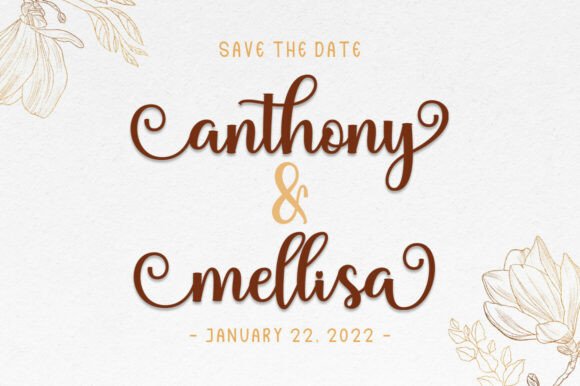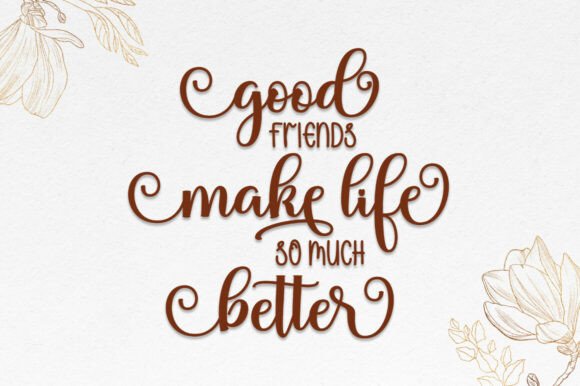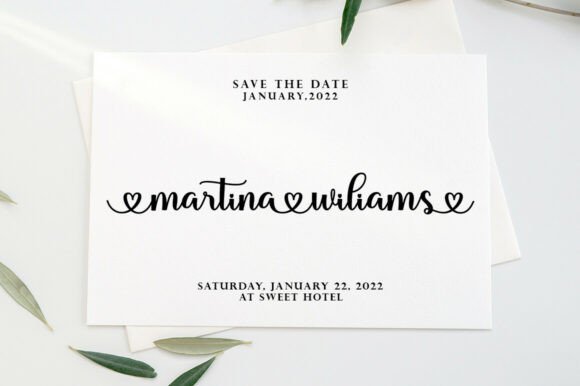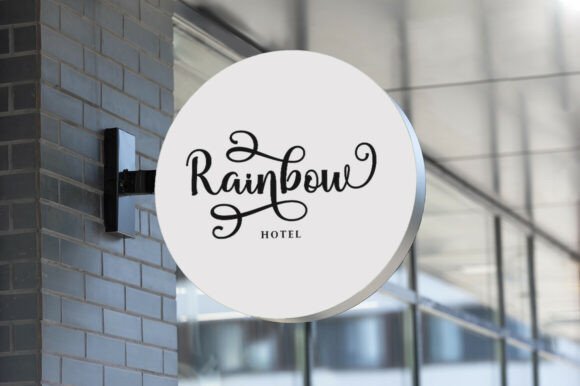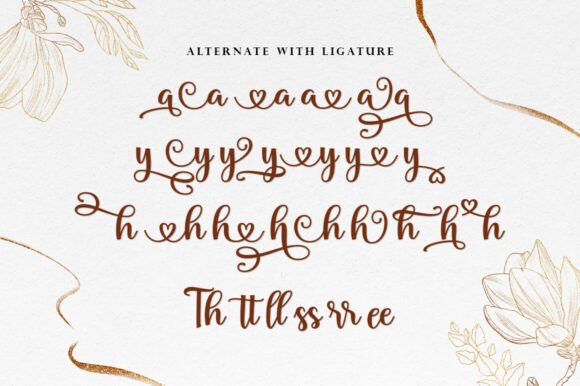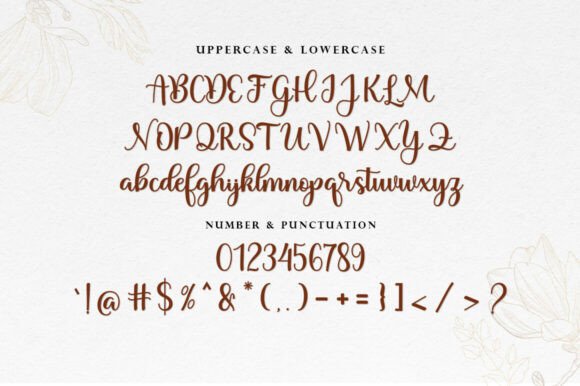
Discover the Charm of Blantone Font: A Soft and Sweet Calligraphic Typeface
Are you a designer or crafter looking for a unique and elegant font to elevate your creative projects? Look no further than Blantone Font, a soft and sweet calligraphic typeface that is sure to capture your heart. With its casual and elegant touch, Blantone Font is perfect for a wide range of applications, from logos and wedding invitations to headings, t-shirts, and more.
The Characteristics of Blantone Font
Blantone Font is a beautifully crafted calligraphic typeface that boasts a range of distinctive characteristics. The characters in Blantone Font dance along the baseline, creating a sense of movement and fluidity that is both visually appealing and engaging. The font’s soft and sweet appearance makes it perfect for designs that require a touch of elegance and sophistication.
What Makes Blantone Font So Versatile?
One of the things that sets Blantone Font apart from other typefaces is its incredible versatility. This font can be used for a wide range of purposes, including:
- Logos: Create a unique and memorable logo for your business or brand with Blantone Font.
- Wedding Invitations: Add a touch of elegance and romance to your wedding invitations with Blantone Font.
- Headings: Use Blantone Font to create eye-catching headings for your website, blog, or marketing materials.
- T-Shirts: Design custom t-shirts with Blantone Font for a unique and stylish look.
- Letterheads: Elevate your business correspondence with Blantone Font on your letterheads.
- Signage: Create eye-catching signs with Blantone Font for your business or event.
- Labels: Use Blantone Font to create custom labels for your products or packaging.
- News: Add a touch of elegance to your news articles or blog posts with Blantone Font.
- Posters: Create stunning posters with Blantone Font for your business or event.
- Badges: Design custom badges with Blantone Font for your business or organization.
Why Designers and Crafters Love Blantone Font
Blantone Font has quickly become a favorite among designers and crafters, and for good reason. This font offers a unique combination of elegance, sophistication, and playfulness that makes it perfect for a wide range of creative projects. Here are just a few reasons why designers and crafters love Blantone Font:
- Elegant and Sophisticated: Blantone Font adds a touch of elegance and sophistication to any design.
- Unique and Creative: Blantone Font is a one-of-a-kind typeface that will help your designs stand out from the crowd.
- Easy to Read: Despite its elegant appearance, Blantone Font is easy to read and understand.
- Highly Versatile: Blantone Font can be used for a wide range of purposes, from logos and headings to t-shirts and signage.
Tips for Using Blantone Font
To get the most out of Blantone Font, here are a few tips to keep in mind:
- Use it sparingly: Blantone Font is a statement font, so use it sparingly to add emphasis and elegance to your designs.
- Experiment with colors: Blantone Font looks great in a range of colors, so don’t be afraid to experiment and find the perfect hue for your design.
- Pair it with other fonts: Blantone Font pairs well with a range of other fonts, so try combining it with other typefaces to create a unique and interesting look.
Blantone Font is a soft and sweet calligraphic typeface that is sure to capture your heart. With its casual and elegant touch, Blantone Font is perfect for a wide range of creative projects, from logos and wedding invitations to headings, t-shirts, and more. Whether you’re a designer or crafter, Blantone Font is a must-have font that will help you create stunning and effective designs.